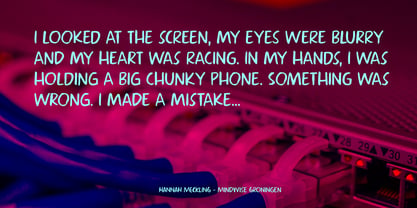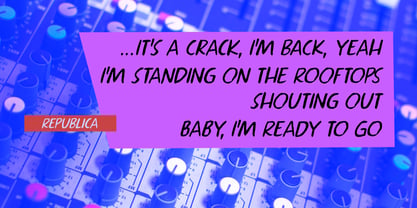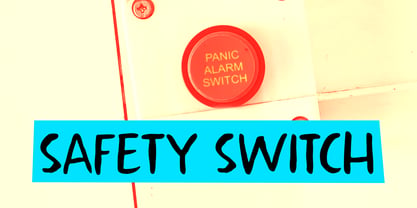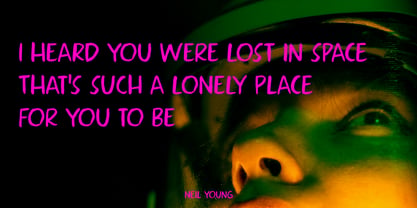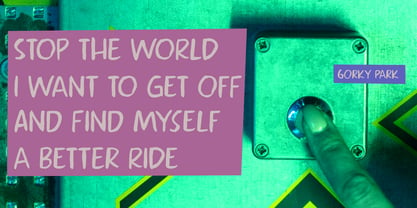
Safety Switch Pro
by Hanoded
The Safety Switch Pro Font Family was designed by David Kerkhoff and published by Hanoded. Safety Switch Pro contains 2 styles and family package options. More about this family
I am not entirely sure why I called this font Safety Switch. Maybe it is because I am renovating a ’30’s house and the Safety Switch has kept me from harm a couple of times!
Safety Switch is a nice, handmade font. It was created using a thin brush and Chinese ink. Safety Switch comes with extensive language support and a set of contextual alternates.
Hanoded is run by Dutchman David Kerkhoff. His fonts are a mishmash of styles, as he just creates whatever pops into his head. You will find a lot of brush fonts in his collection, as his favourite tools are brushes and Chinese ink, with cartoon style fonts and script fonts complementing his repertoire. Aside from making fonts, David occasionally guides tours in far-flung places, renovates his '30's house and tries reasoning with his wife and (teenage) kids. Not an easy task!